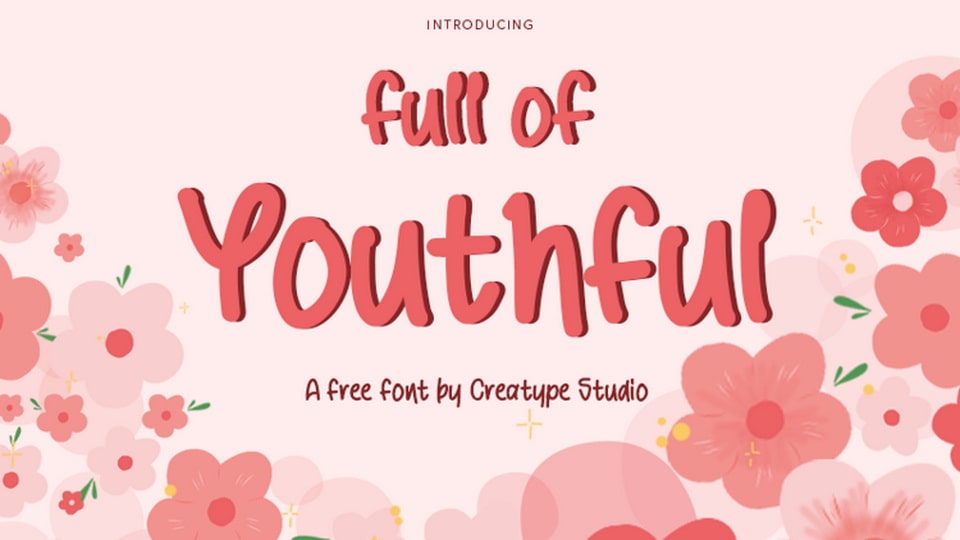
Youthful is a simple and natural handwritten font that captures the effortless charm of a personal, everyday script. With its fluid, unrefined strokes and organic letterforms, it feels like a warm invitation to connect. Each character flows naturally, as if written with a gentle hand, bringing a relaxed, authentic vibe to any design.
Ideal for projects that seek a personal touch, Youthful font is perfect for casual branding, invitations, handwritten notes, and organic product labels. Its uncomplicated beauty shines through in designs that embrace simplicity and authenticity, creating a warm, inviting atmosphere wherever it’s used.